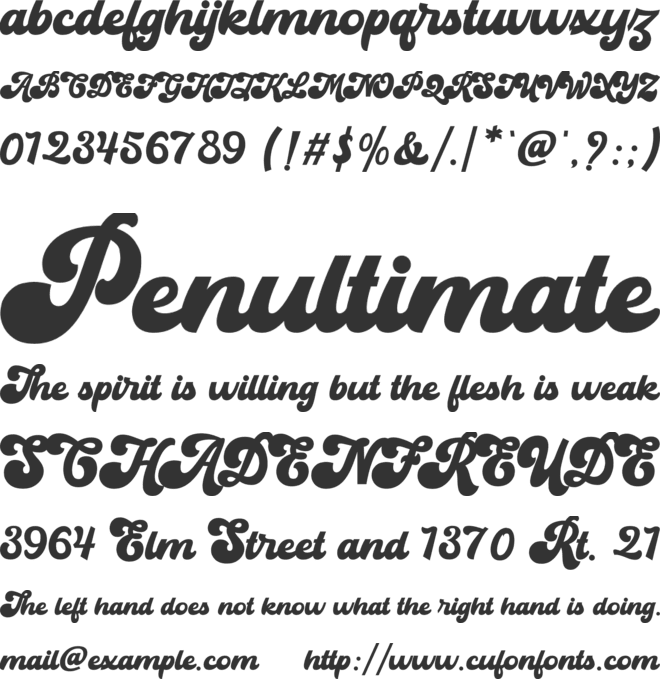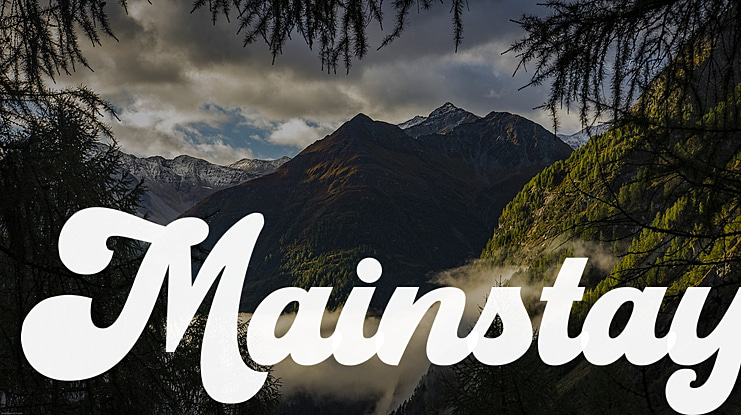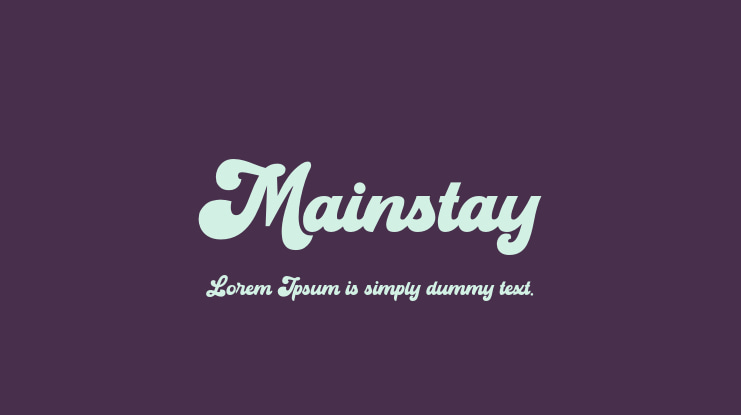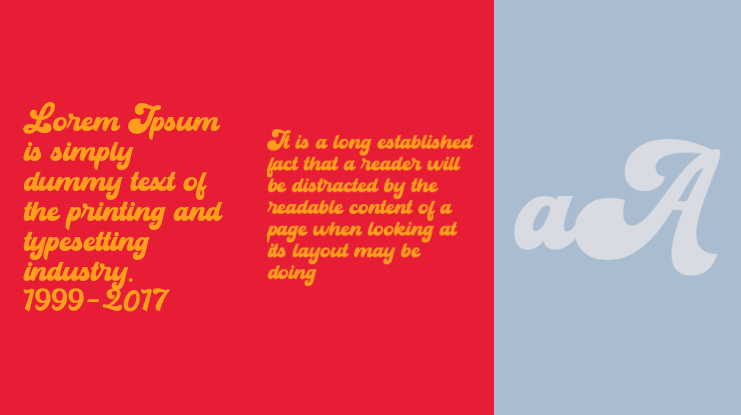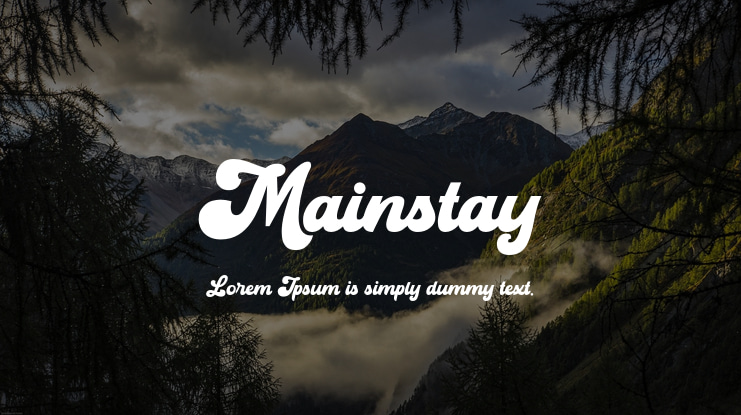
Mainstay Font
The Mainstay is a bold and retro styled handwritten font. This font reads as strong, confident, and dynamic and can add tons of nostalgic character to your designs.